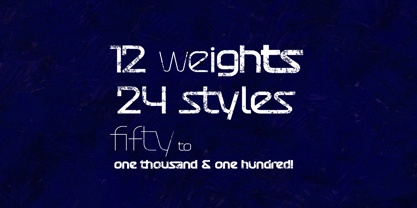
Atures
by Mans Greback
Atures Font Family was designed by Måns Grebäck and published by Mans Greback. Atures contains 72 styles and family package options. More about this family
About Atures Font Family
Atures is a high quality multi-weight typeface, drawn and created by Måns Grebäck during 2018. It is a professional font family with futuristic, space-inspired design. The family consists of 12 weights and with italic a total of 24 styles. Atures has extensive language support, and contains all characters you'll ever need.
About Mans Greback
Måns Grebäck is a type designer and font creator specializing in script typography, but with a portfolio containing a vast selection of styles. Typefaces from Måns Grebäck are commonly used as company and product logotypes, as well as headlines and in advertisement by a wide range of industries world-wide. Founded by Måns Grebäck in 2010, Mans Greback AB originally went under the name of Mawns Fonts and later Aring Typeface AB. Måns Grebäck is currently based in Örebro, Sweden. (See Creative Characters interview)